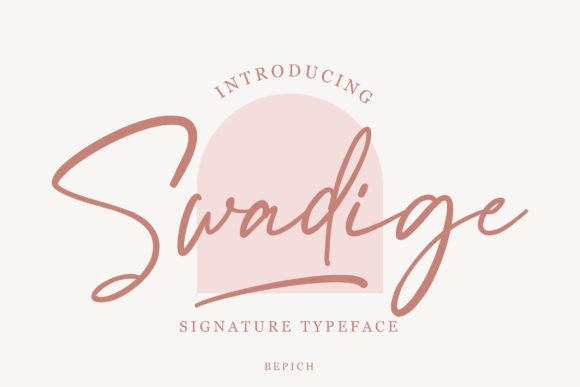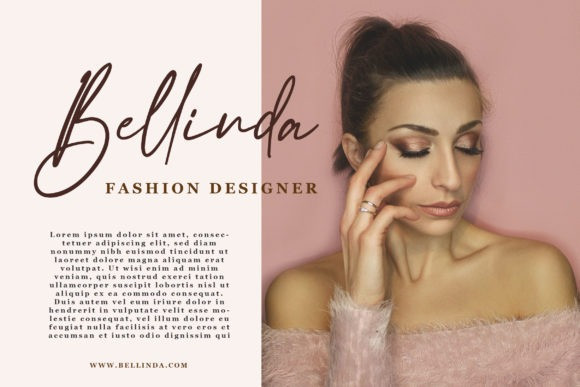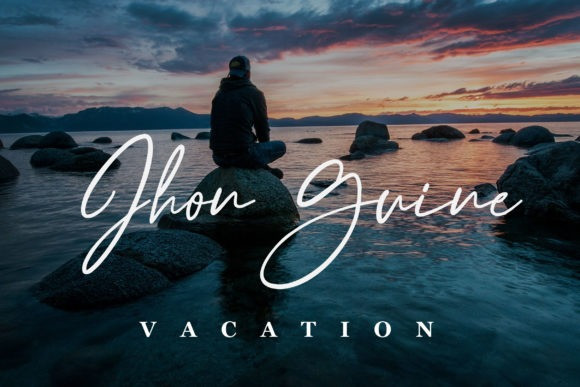
Swadige Font
Swadige is a modern and classy signature font, that comes with beautiful ligatures. It has a very gorgeous stroke and it will suit various wedding invitations, fashion cards, and more.